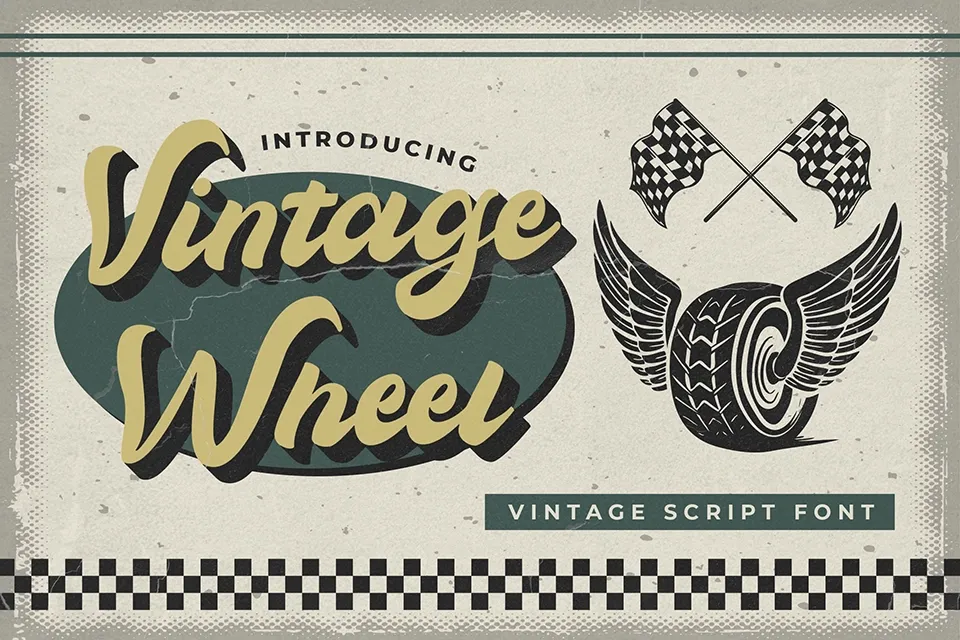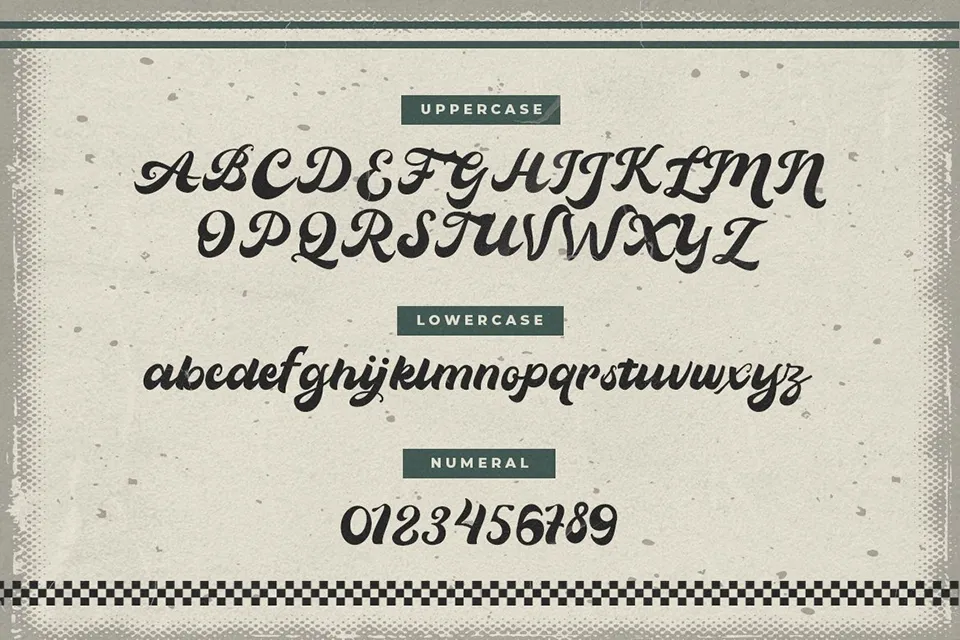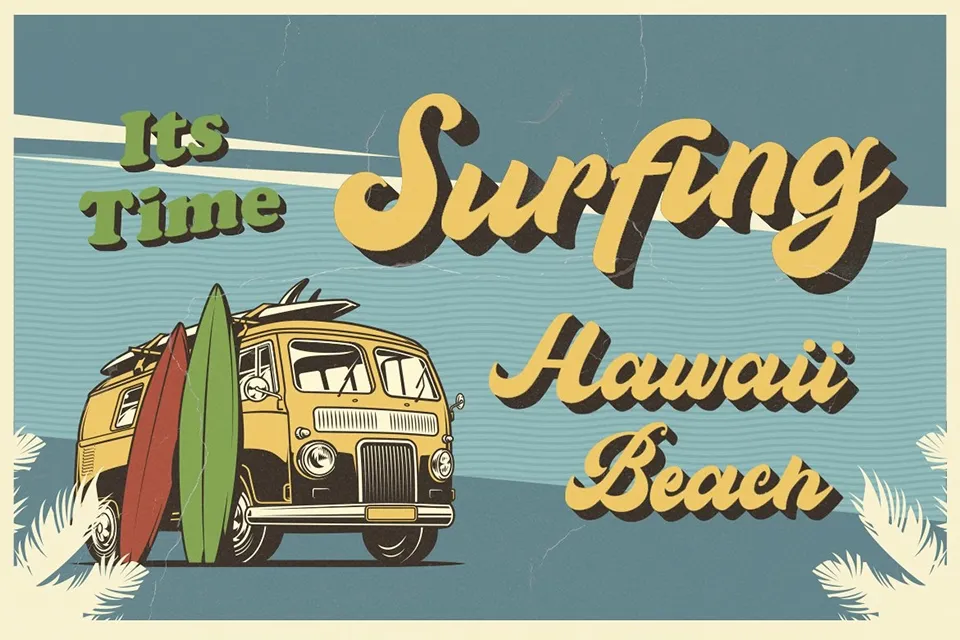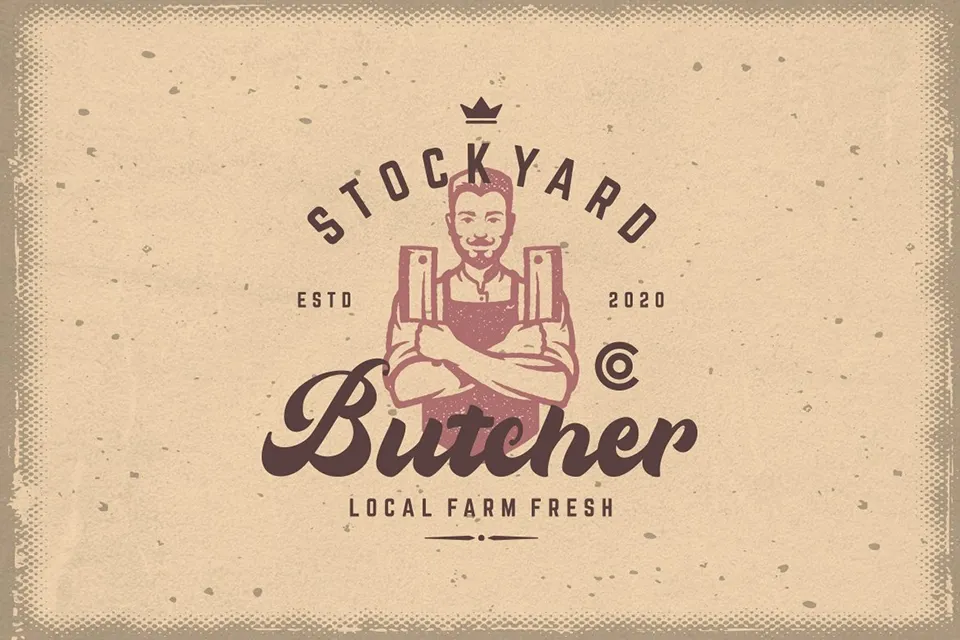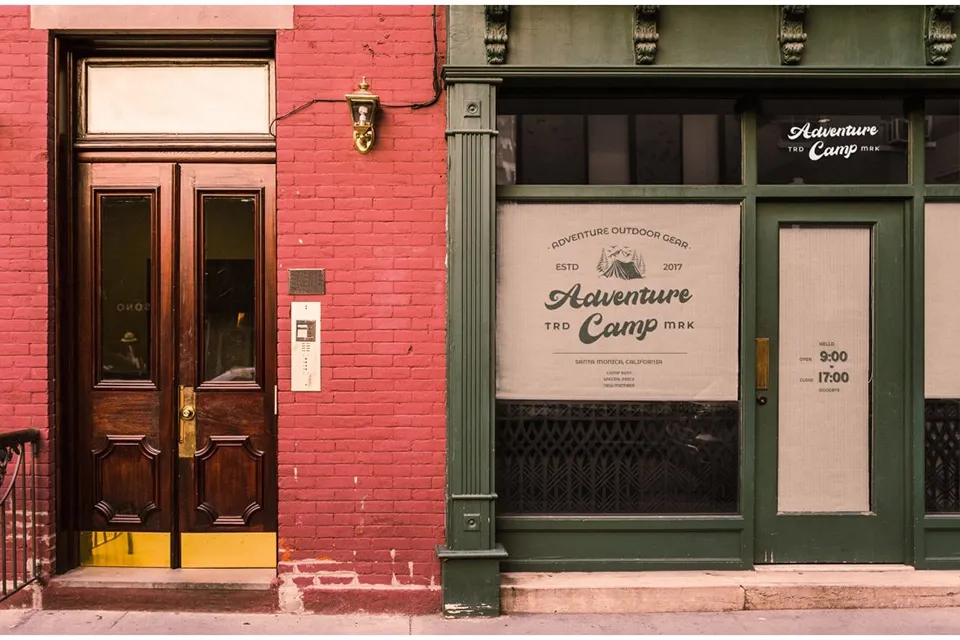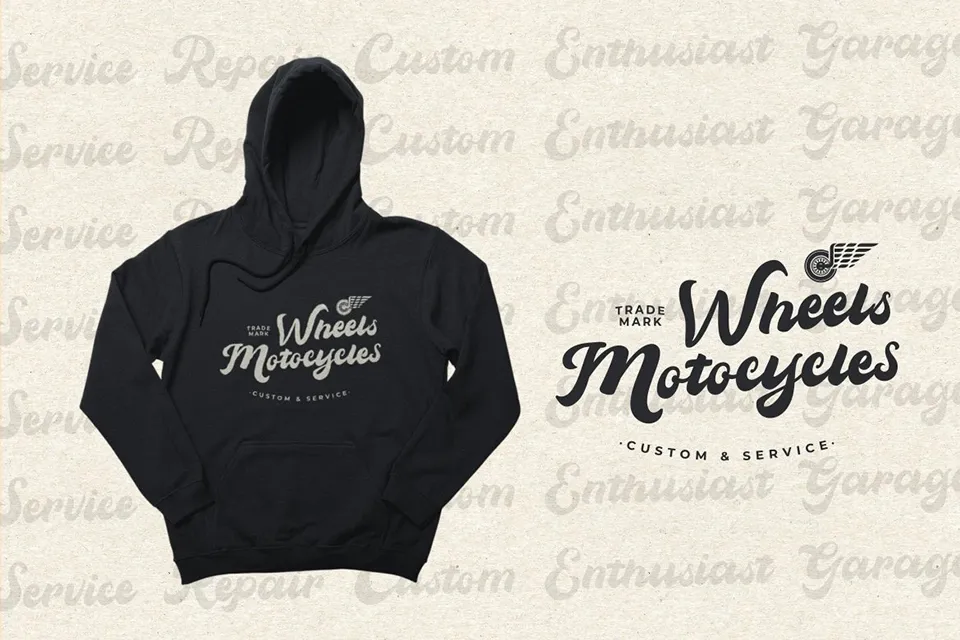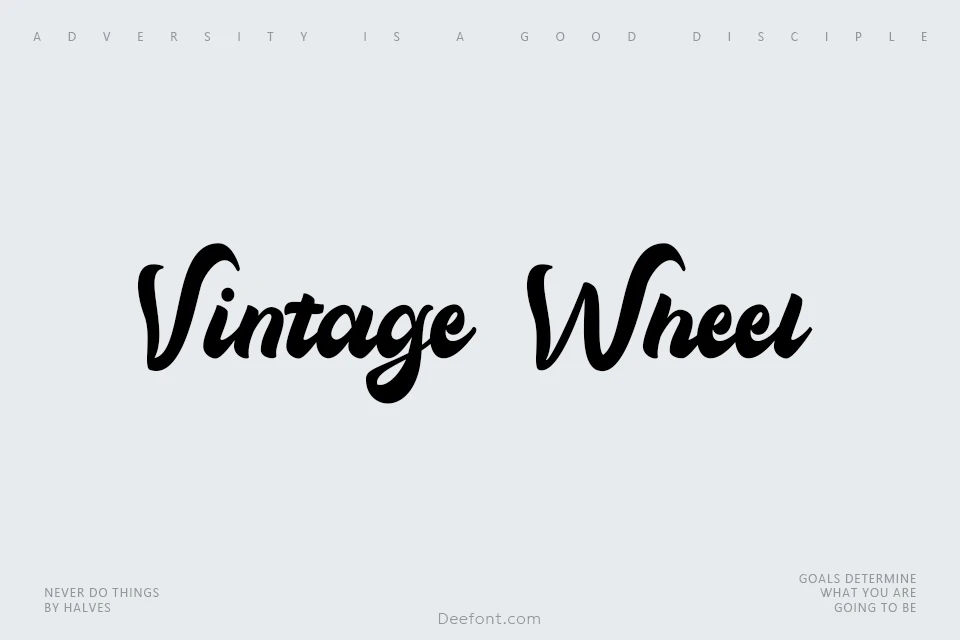
Vintage Wheel Font
Vintage Wheel Font is a bold and stylish script font inspired by classic retro designs. With its dynamic curves and vintage flair, this typeface is perfect for projects that need a nostalgic yet energetic touch. Ideal for logos, posters, branding, and automotive-themed designs, Vintage Wheel captures the spirit of speed and adventure. Its smooth letterforms and handcrafted feel add personality and charm to any creative work. Whether you’re designing for print or digital platforms, Vintage Wheel brings a timeless aesthetic that stands out. Elevate your designs with this versatile font that blends retro vibes with modern functionality!